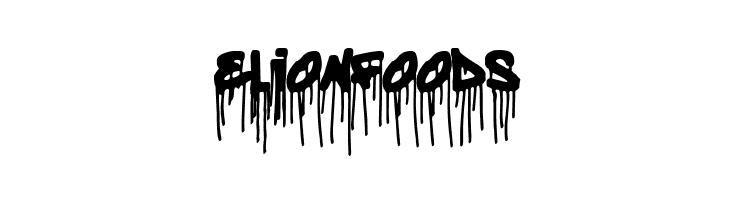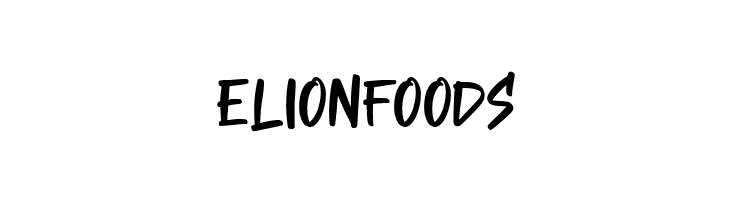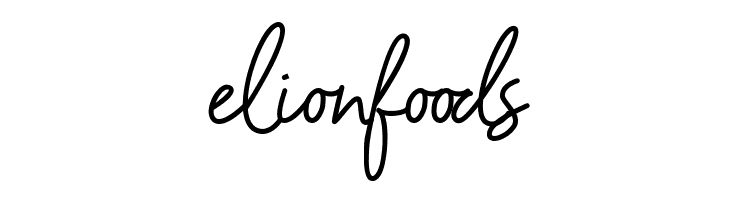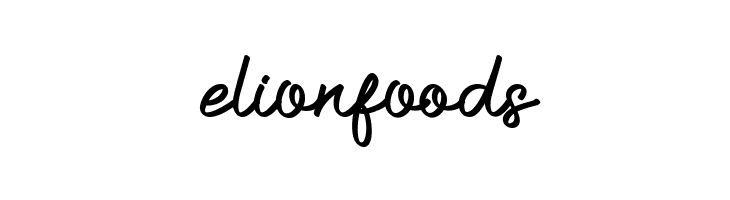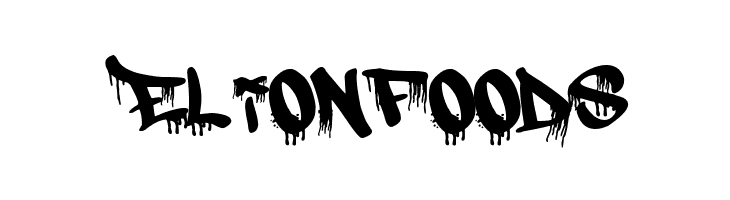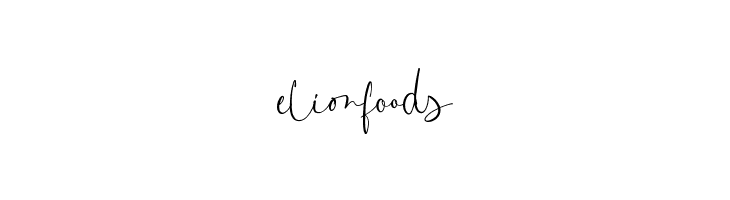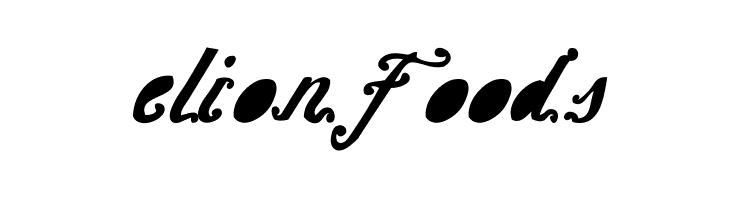
A bold, graffiti-inspired font with drips and splatters for an edgy, urban look.
A sleek, italicized font with a modern and elegant style.
A bold, italicized script font with decorative swirls and flourishes.
A bold, handwritten-style font with dynamic strokes and a casual, energetic appearance.
A lively and dynamic handwritten font with fluid, cursive letterforms.
A bold, dripping font perfect for horror and Halloween themes.
A bold, graffiti-style font with a dripping paint effect, perfect for urban-themed designs.
A flowing, elegant script font with dynamic, cursive strokes.
A flowing, elegant script font with a modern calligraphic style.
A lively, flowing script font with elegant, connected strokes.